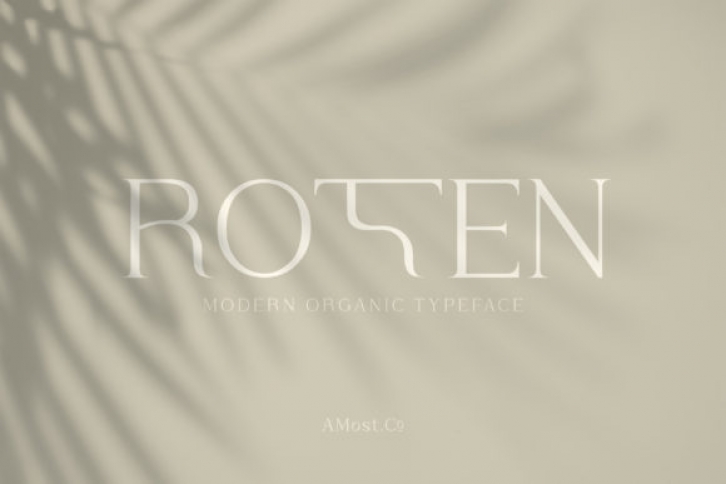
Roten is a modern serif font. It features a sophisticated look and it will look particularly adept when used in logos, branding, packaging design, and much more. This masterfully designed typeface is a true must-have.